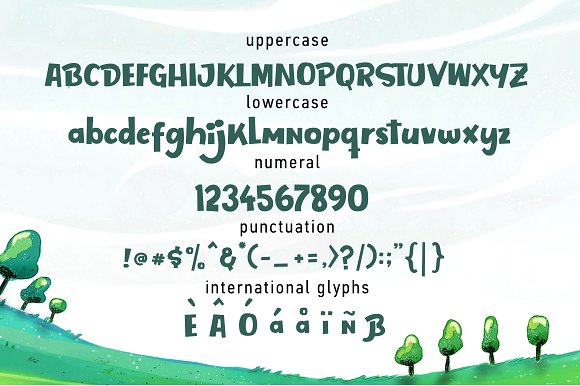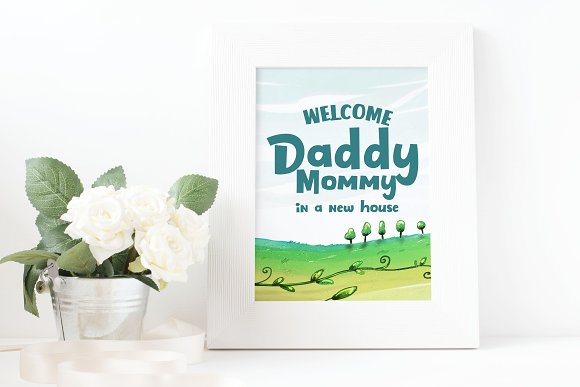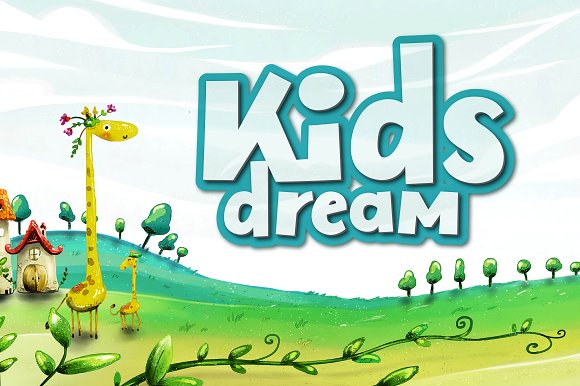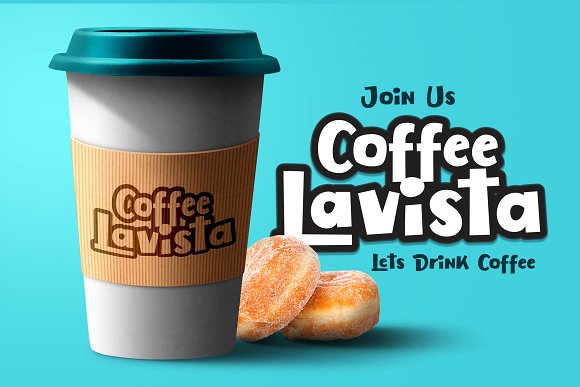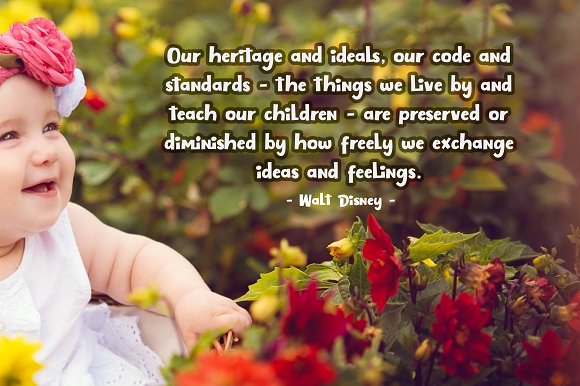
Introducing Comichate Font: The Ultimate Display Font for Creative Projects
Are you a designer, crafter, or marketer looking for a fun and professional display font to elevate your projects? Look no further than Comichate Font! This versatile and easy-to-read font is perfect for a wide range of applications, from marketing and branding to craft projects and beyond.
What is Comichate Font?
Comichate Font is a carefully crafted display font designed to add a touch of personality and whimsy to your projects. Its unique and playful style makes it an excellent choice for headlines, titles, and short text passages. Whether you’re creating a logo, brochure, or social media graphic, Comichate Font is sure to make a lasting impression.
Key Features of Comichate Font
- Fun and playful style: Comichate Font boasts a unique and energetic vibe that’s perfect for creative projects.
- Easy to read: Despite its playful nature, Comichate Font remains highly legible, making it suitable for use in a variety of contexts.
- Professional look: Comichate Font’s clean lines and carefully crafted letterforms give it a professional appearance that’s perfect for marketing and branding applications.
- Versatile: Comichate Font can be used in a wide range of projects, from digital graphics to print materials.
Use Cases for Comichate Font
Comichate Font’s versatility makes it an excellent choice for a variety of projects, including:
- Marketing and branding: Use Comichate Font to create eye-catching logos, headlines, and titles that showcase your brand’s personality.
- Craft projects: Add a touch of whimsy to your craft projects, such as handmade cards, scrapbooking, and DIY tutorials.
- Digital graphics: Use Comichate Font to create engaging social media graphics, blog posts, and website headers.
- Print materials: Comichate Font is perfect for use in brochures, flyers, posters, and other print materials.
Why Choose Comichate Font?
With so many fonts available, why choose Comichate Font? Here are just a few reasons:
- Unique style: Comichate Font’s playful style sets it apart from more traditional fonts.
- High legibility: Comichate Font is easy to read, even at smaller sizes.
- Professional appearance: Comichate Font’s clean lines and carefully crafted letterforms give it a professional look that’s perfect for marketing and branding applications.
Tips for Using Comichate Font
To get the most out of Comichate Font, follow these tips:
- Use it sparingly: Comichate Font is best used in short text passages or headlines. Avoid using it for longer blocks of text.
- Experiment with colors: Comichate Font looks great in a variety of colors, so don’t be afraid to experiment and find the perfect hue for your project.
- Pair it with other fonts: Comichate Font pairs well with a variety of other fonts. Try pairing it with a clean sans-serif font for a bold and eye-catching look.
Comichate Font is a versatile and fun display font that’s perfect for a wide range of creative projects. Its unique style, high legibility, and professional appearance make it an excellent choice for designers, crafters, and marketers. Whether you’re creating a logo, brochure, or social media graphic, Comichate Font is sure to make a lasting impression.